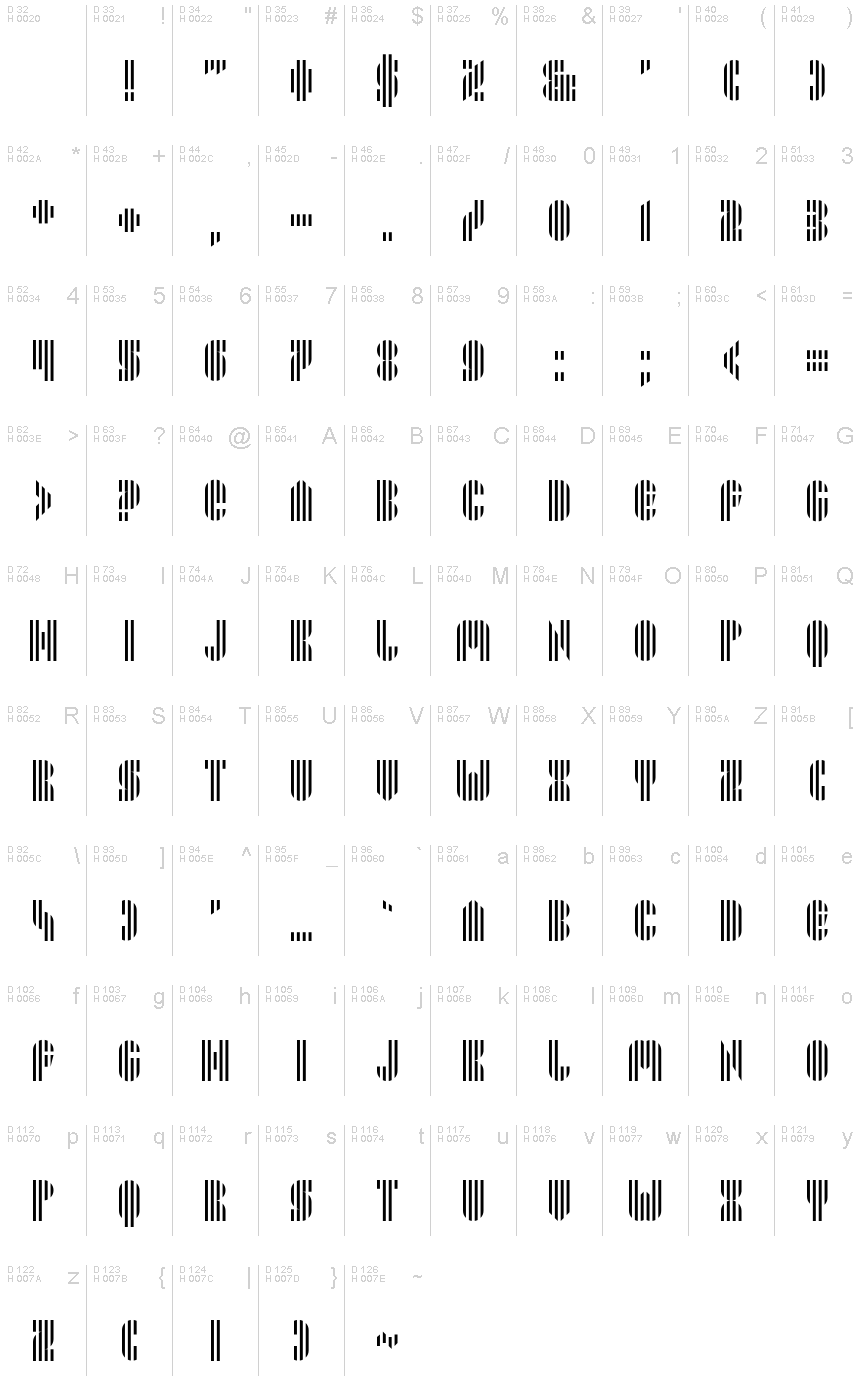
Pyrsing
Pyrsing is a bold, condensed display font that exudes an eye-catching, dynamic presence. Designed by Chequered Ink, this decorative typeface features a striking balance of vertical lines and rounded forms, creating a captivating visual rhythm.
The condensed width lends a sense of energy and urgency, while the bold weight ensures maximum impact. Pyrsing's distinctive style makes it an exceptional choice for a wide range of design applications, from attention-grabbing headlines and impactful logos to dynamic branding and packaging.
Its bold, modern aesthetic can elevate various creative projects, from editorial layouts to digital interfaces, imbuing them with a sense of assertiveness and visual flair.